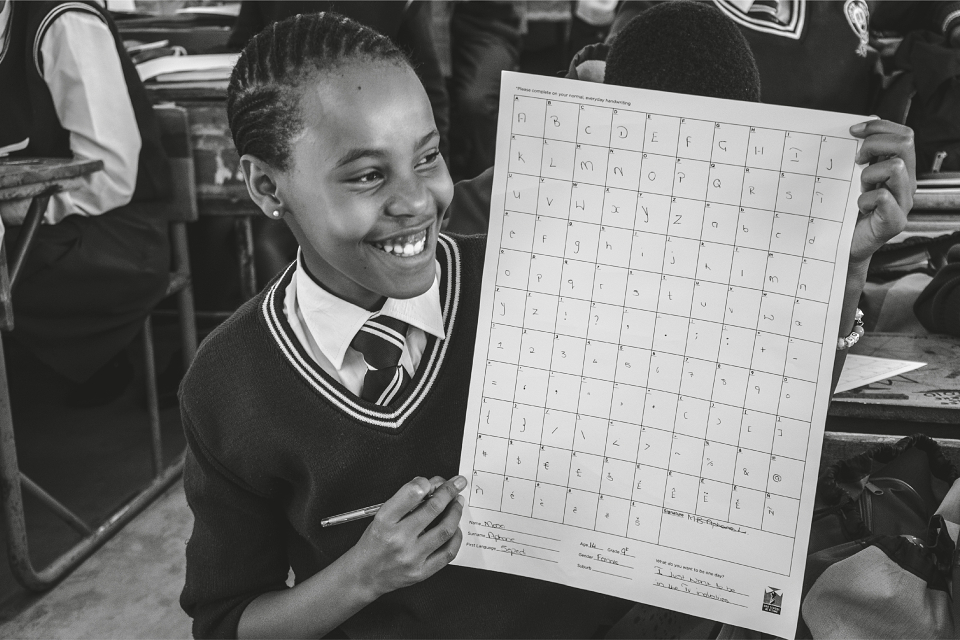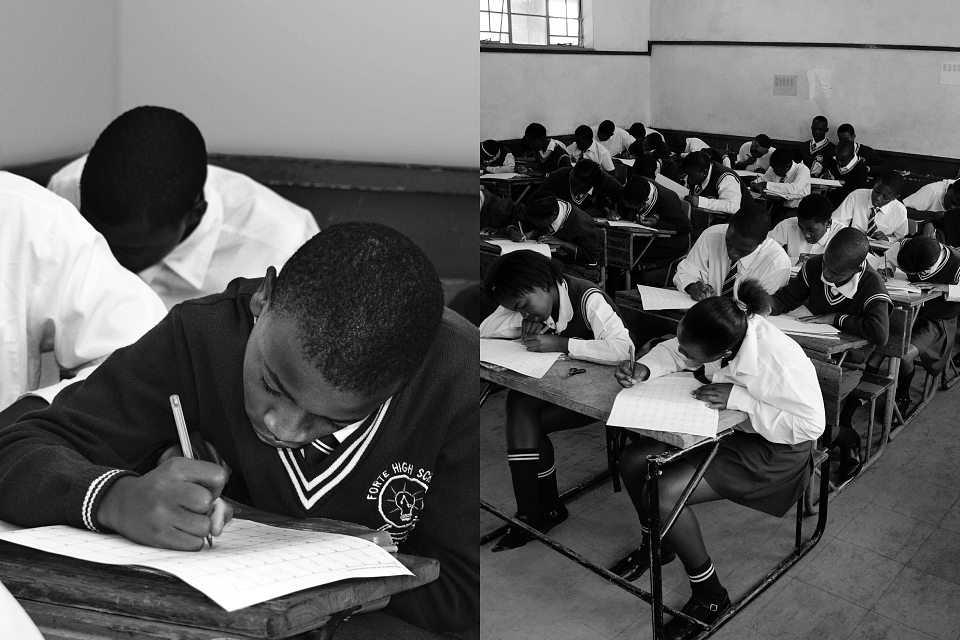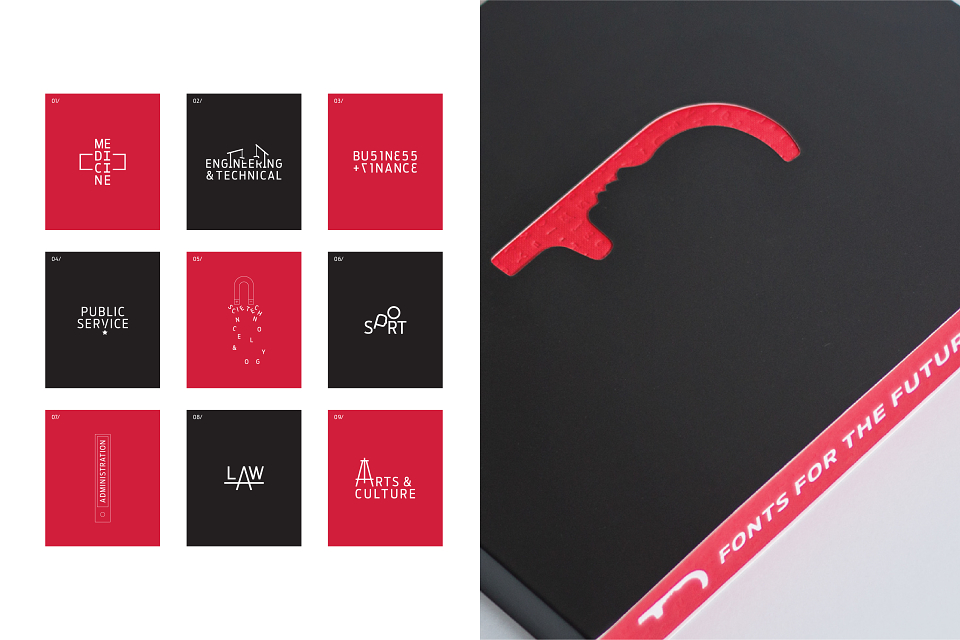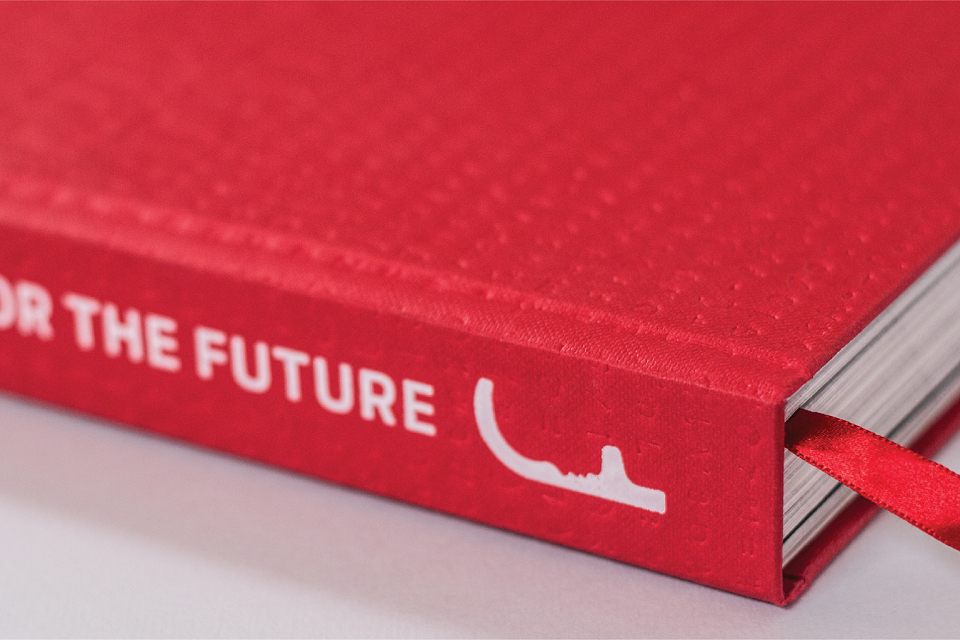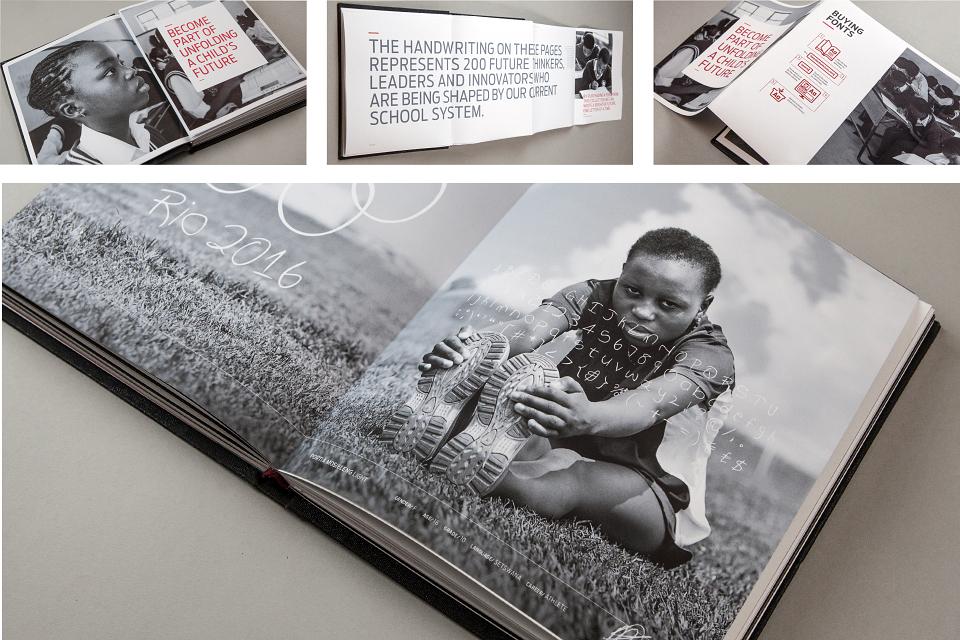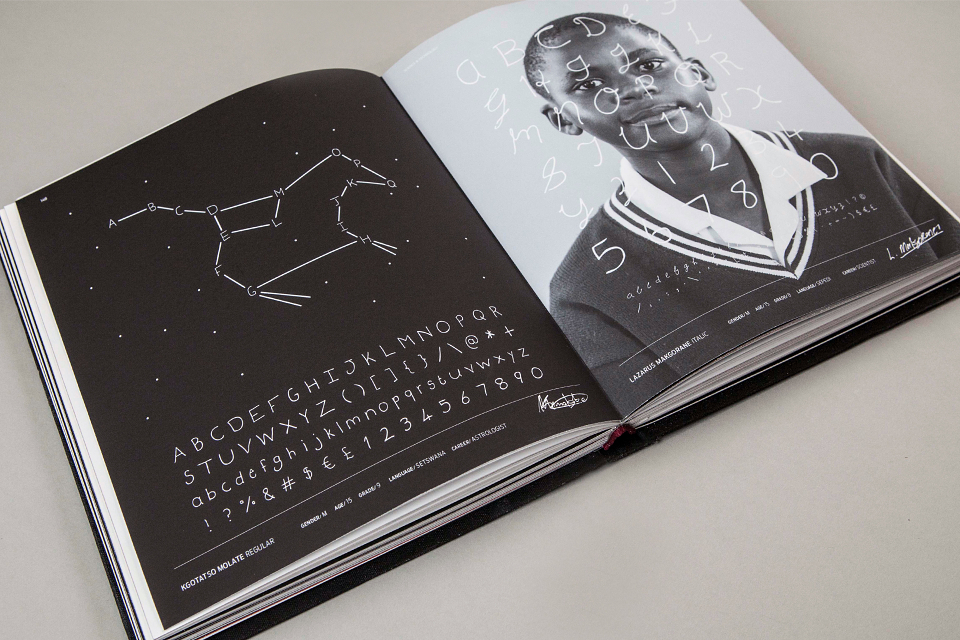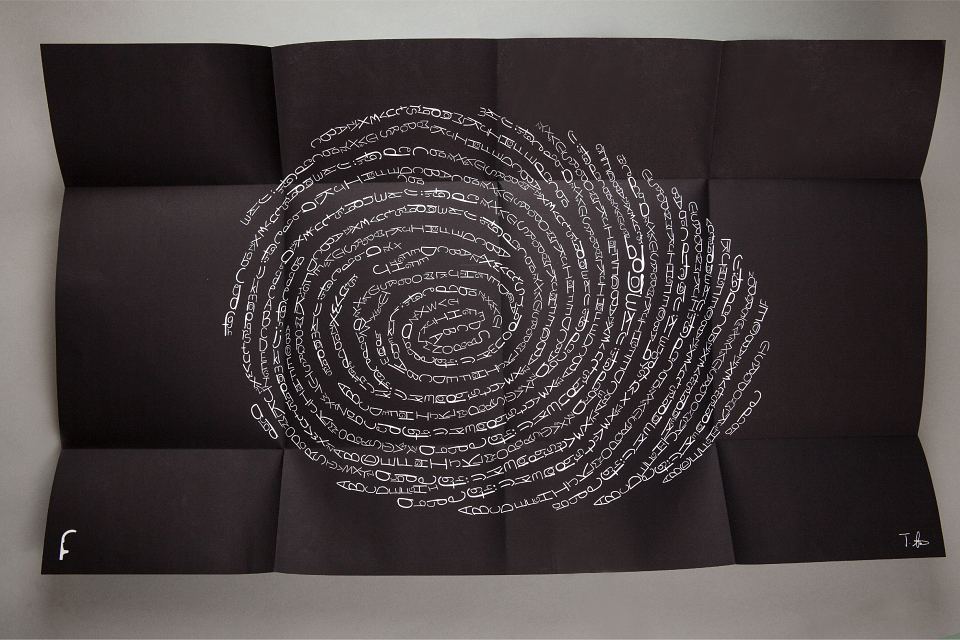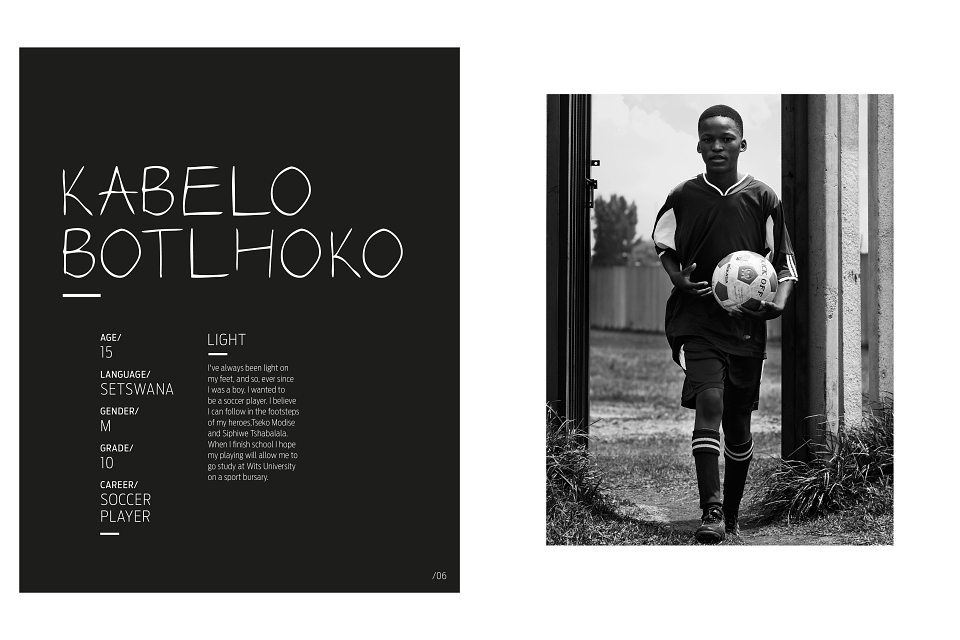
BACKGROUND
South Africa has the worst performing educational system in Africa. Of 27 000 schools in South Africa, 22 000 schools are rated as dysfunctional. And out of 143 countries, we are ranked 141 in the world in terms of maths and science results. The lack of a functional educational system is at the root of several problems we face as a country. To transform our country, we need to transform education. OSAAT is a non-profit organisation that engages with schools in SA to improve the level of education. But to do so, we need funding.
CHALLENGE
In a country where individuals and corporates are inundated with fundraising campaigns, we needed a strong message to break through the clutter.
THE INSIGHT
We created a fundraising tool using the one thing underprivileged students can donate, their handwriting. We asked high school learners what they dream of becoming in the future.
Then, we asked them to write an alphabet. We scanned, traced and programmed the fonts and divided them into career categories according to the students’ dreams.
THE SOLUTION
WE CREATED FONTS FOR THE FUTURE.
One of the components of the Fonts for the Future Campaign is the font book, sent out as a direct mailer to corporates and individuals, to serve as a catalogue and purchased as a collector’s item. We named the fonts after their creators, and assigned a font weight to each,
to match the style of their handwriting. Some layouts were created as a reflection of students’ goals. Students’ career choices were highlighted and we predicted their bright futures, based on their dreams. By purchasing this book or a font from this collection, you don't only invest in the hopes and dreams of a learner, but write a better future, one letter at a time.
Fonts for the future.